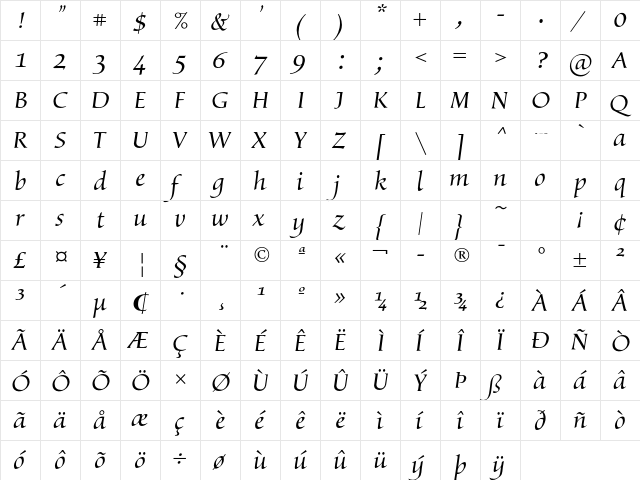
Byngve LT Std Italic Font Preview
| Foundry | Linotype GmbH |
| Designer | Bo Berndal |
Design Context for Byngve LT Std Typeface
Byngve LT Std offers clean, dependable letterforms without strong stylistic allegiance, making it a practical choice for designers who need flexibility. Its italic angle brings a sense of urgency and motion to the letterforms. Its slender proportions lend an understated elegance to any composition.
Pro Tip: Try Byngve LT Std for annotation and caption copy alongside an upright companion — the contrast in angle creates a dynamic but ordered typographic system.